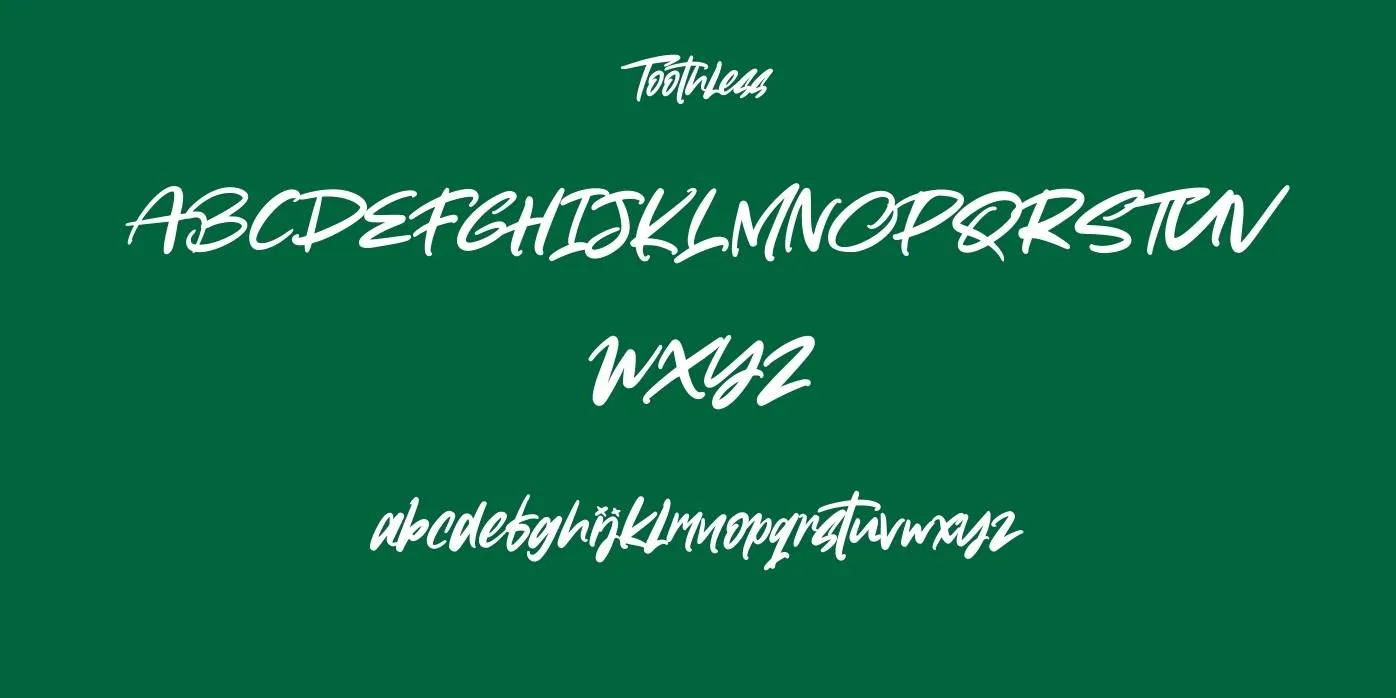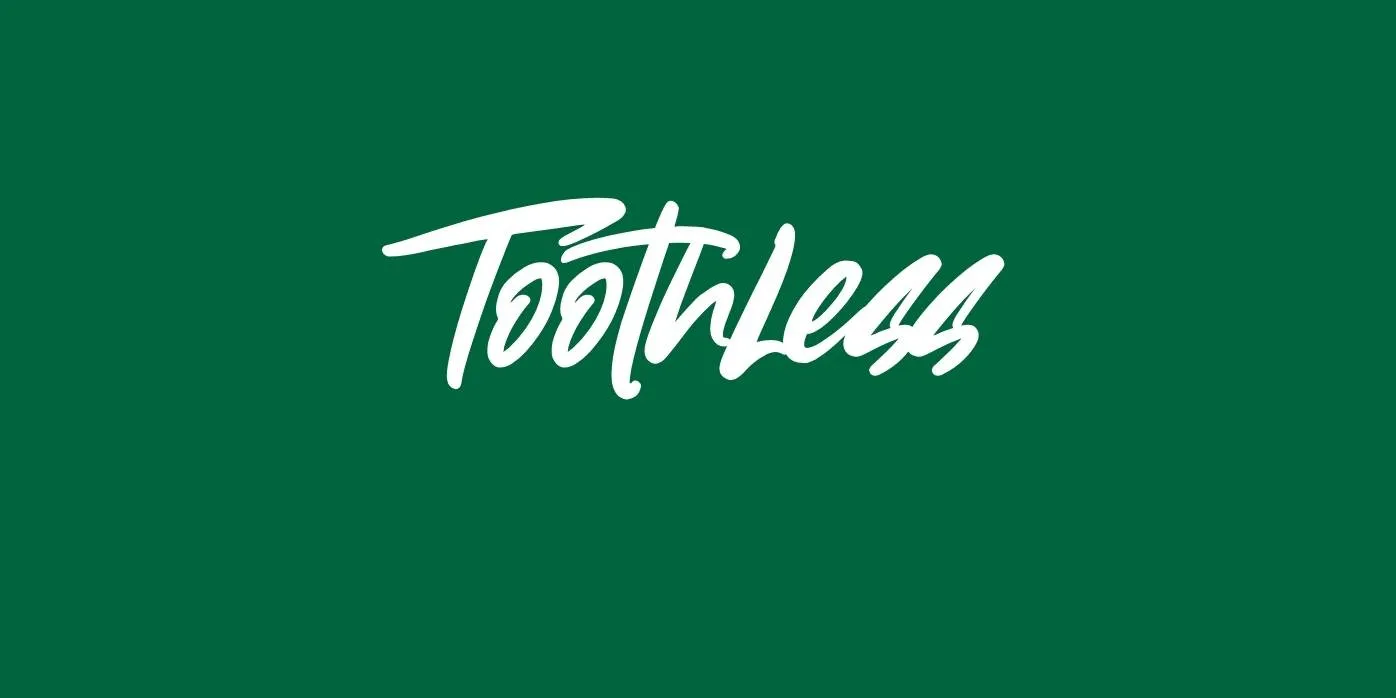
Toothless Font
Weape Studio designed this font. The toothless font is a handwritten typeface that has only one style. The family contains no extension. The characters of this font are effortlessly readable because they are stylish and slightly bold. This font characters comprised capital letters, lowercase letters, special characters, and numbers.